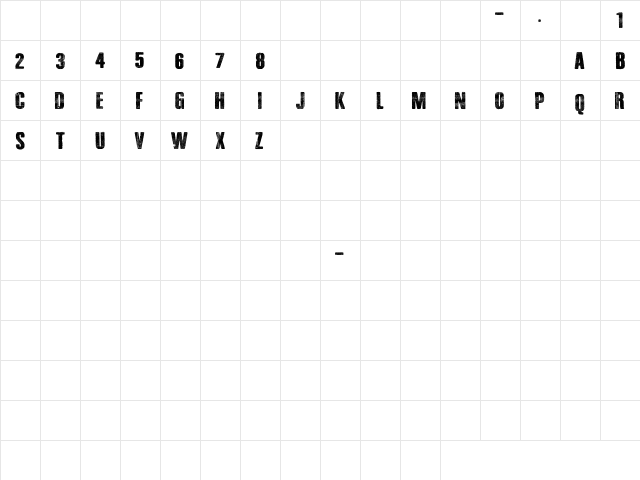
Black Jeans Regular
| Designer | Imagex |
Design Context for Black Jeans Typeface
Black Jeans takes a measured approach to typography — its balanced proportions and neutral character make it a reliable workhorse for both digital and print work.